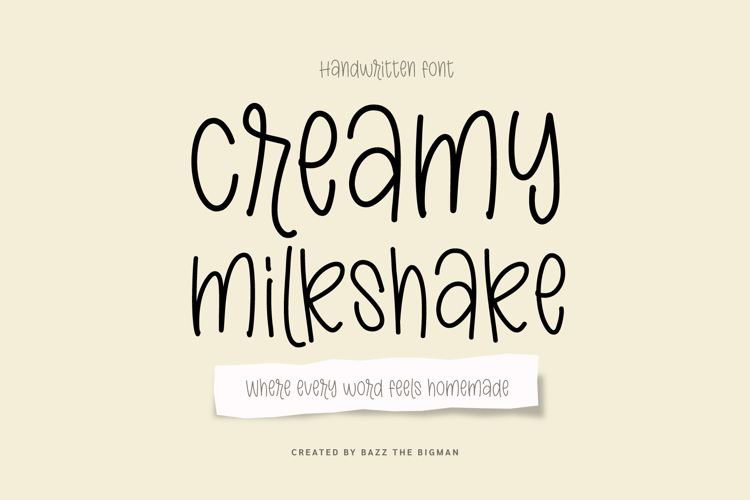
Discover Creamy Milkshake, an enchanting and comforting handwritten font that exudes the warmth of homemade delights. Imbuing life into your playful scripts, it effortlessly crafts intimate and heartwarming designs. Embrace its versatility as it gracefully aligns with a sweeping array of mediums – deck out your café menus, sprinkle creativity on your stickers, or give sentimentality to your greeting cards.